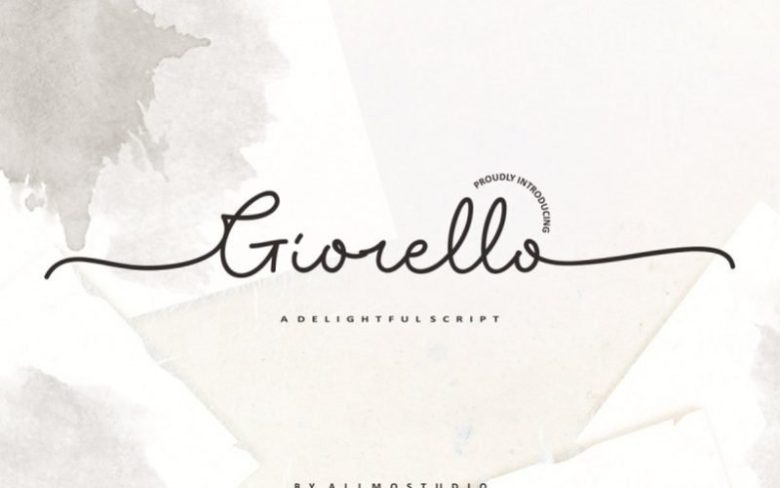
Giorello Script Demo Font
Thanks for download. Giorello was made with a touch of pretty, lovely, feminine and classy I’ve been created to make your design more awesome. perfectly for fashion, feminine brands, blogs, wedding boutiques or any business that wants to appear upscale and chic This font will work on any media, you can use it for logo, headline, typography poster, product packaging, or event your wedding invitation. No special software is required to use Giorello Font.